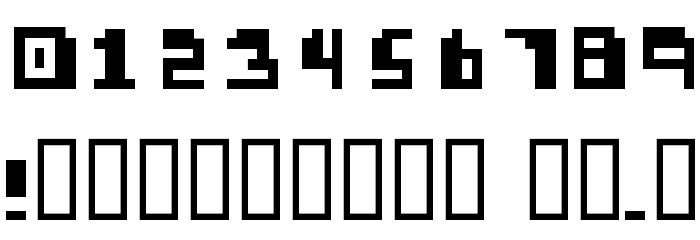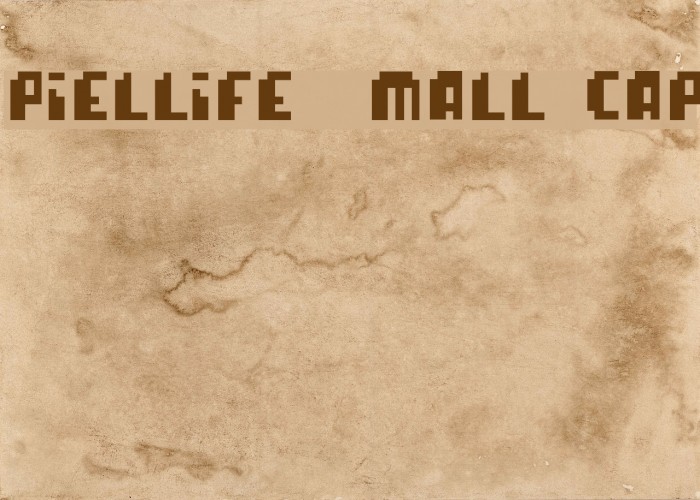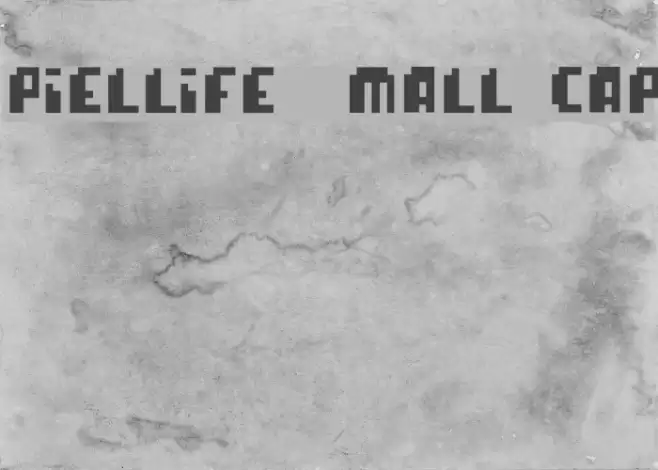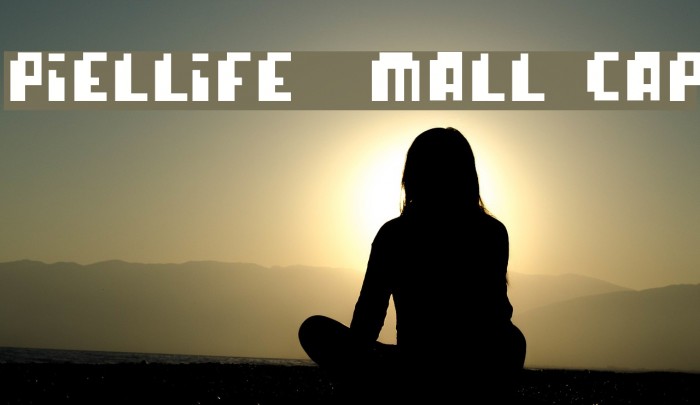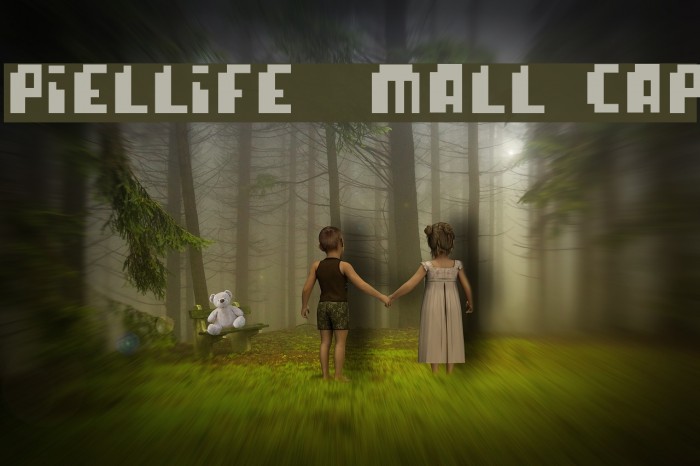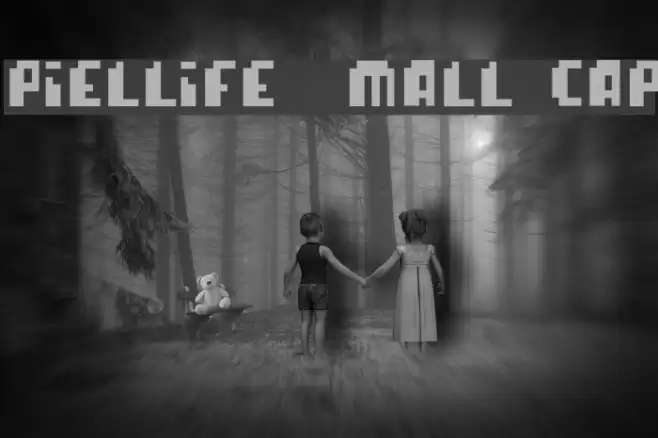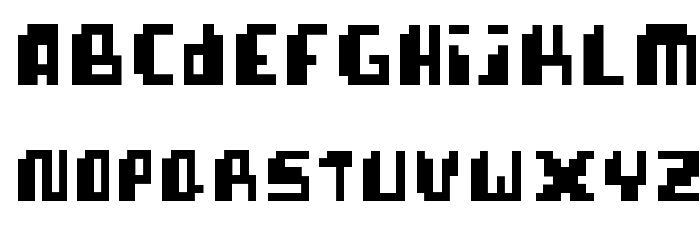
pixellife small cap Font
pixellife small cap Description
This font features a bold, pixelated design reminiscent of early digital and video game aesthetics. The characters are constructed with a blocky, grid-like structure, giving them a retro, 8-bit appearance. The uppercase and lowercase letters maintain a consistent height, creating a uniform look across the alphabet. Numbers and special characters follow the same pixelated style, ensuring cohesion throughout the typeface. The font's geometric simplicity and nostalgic charm make it ideal for projects that aim to evoke a sense of digital nostalgia or retro gaming culture. Its distinct style is both eye-catching and playful, making it suitable for creative and informal applications.
A bold, pixelated font with a retro, 8-bit video game aesthetic from Uncategorized fonts.
- Proposed Projects: Ideal for retro-themed video games, digital art projects, posters, and merchandise that aim to capture a nostalgic, digital feel.
- Overall Style: Retro, Digital